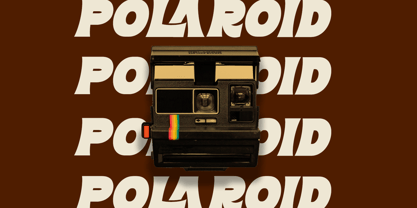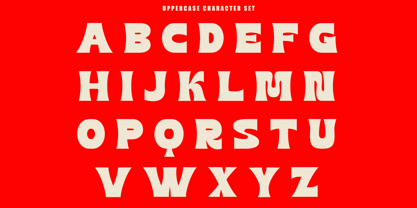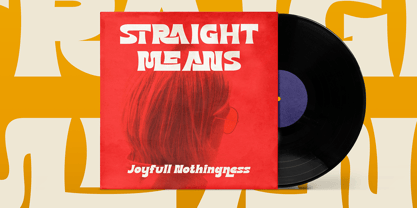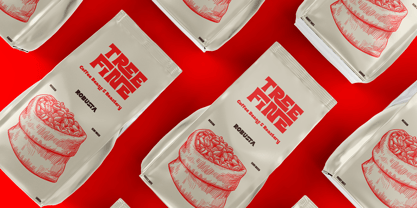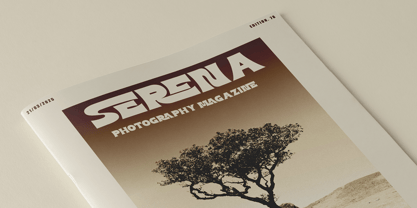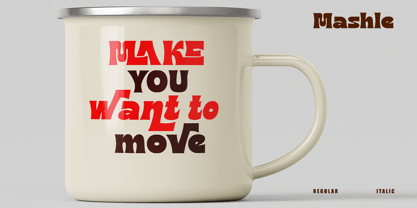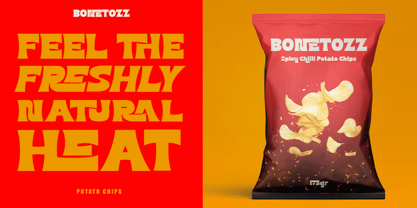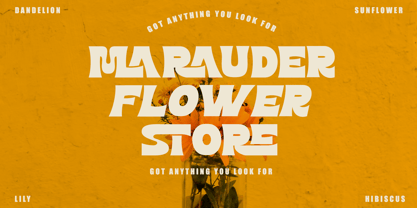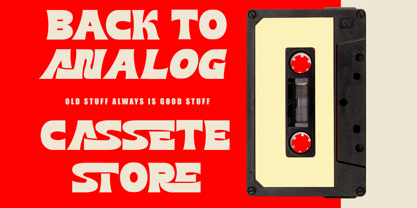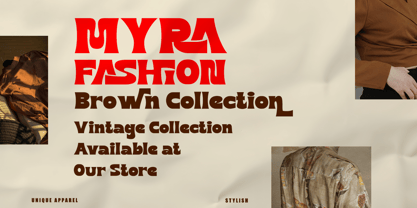
Mashle
by Font Liner
The Mashle Font Family was designed by Ghina Luthfiarieska and published by Font Liner. Mashle contains 2 styles and family package options.
Mashle is a unique sans font that embodies masculinity and a retro feel! It dances in a contemporary mood with a fluidity that evokes the energy of the past. Mashle comes with several alternate characters and ligatures that add uniqueness to any of your designs.This font is perfect for creating posters, vintage or retro items, fashion brands, magazine layouts, food & beverage packaging, quotes, or simply as a stylish text overlay on any background image.